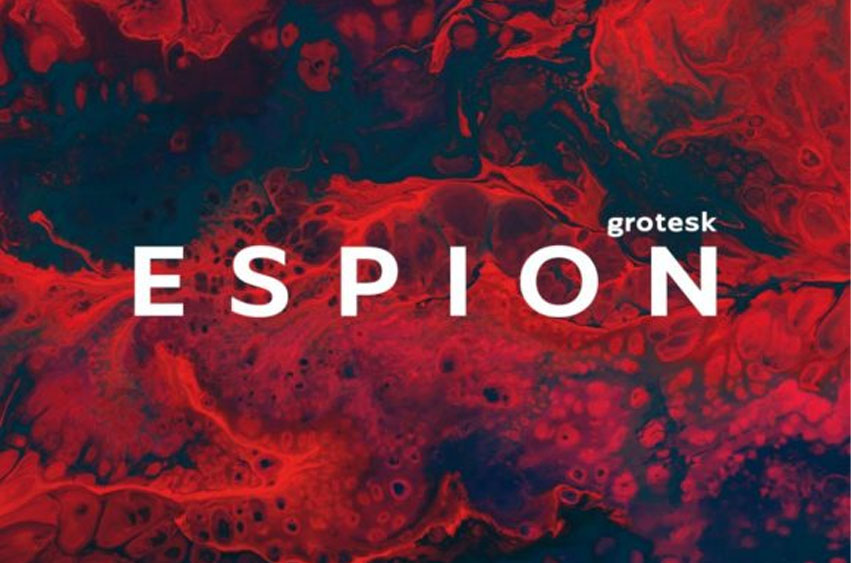
Espion Grotesk Font
Espion Grotesk Font is a fresh, modern display font that is guaranteed to bring a classic look to any project!
Try it on posters, logos and branding materials to see its full potential.